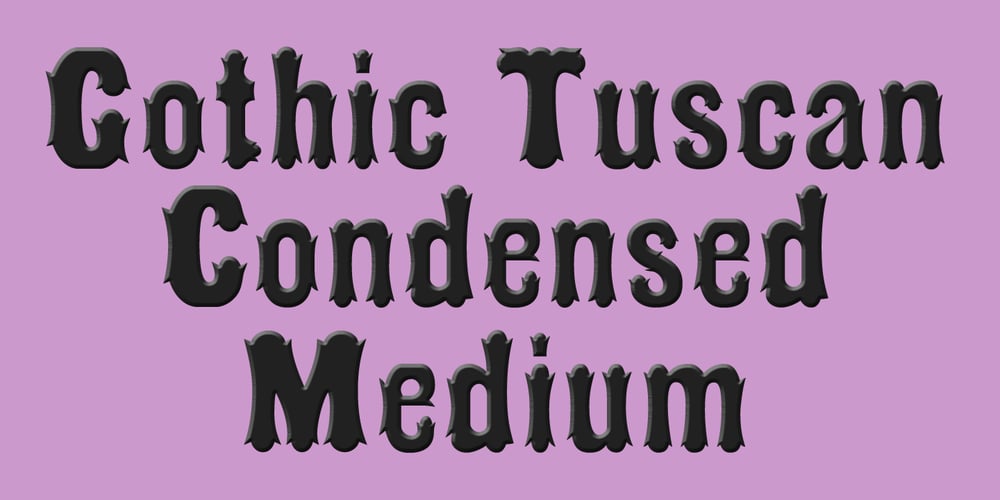
Gothic Tuscan Condensed
Gothic Tuscan Condensed font
Gothic Tuscan Condensed Font Family was designed by Jordan Davies and published by Wooden Type Fonts. Gothic Tuscan Condensed contains 1 styles and family package options. A revival of one of the popular wooden type fonts of the 19th century, a very useful design for display.